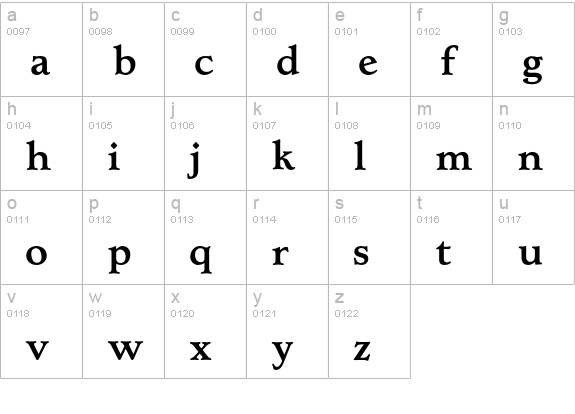
OPTILuciusAd-Bold is a strong, high-contrast variant in the OPTILuciusAd typeface family \xE2\x80\x94 well suited to headlines, attention-grabbing titles, and strong calls-to-action.
OPTILuciusAd-Bold is a striking and versatile font that exudes confidence and modernity. Its bold and strong design makes it perfect for headlines, titles, and branding materials that need to make a bold statement. The sleek lines and sharp edges of this font give it a sleek and contemporary look that is sure to grab attention. What makes OPTILuciusAd-Bold even more appealing is that it is available for free. Yes, you read that right - this high-quality font can be downloaded for free at FontsMarket.com. Whether you are a designer looking to add a powerful touch to your projects or a business in need of a standout font for your marketing materials, OPTILuciusAd-Bold is the perfect choice. Download it today and elevate your designs with this impressive and impactful font.